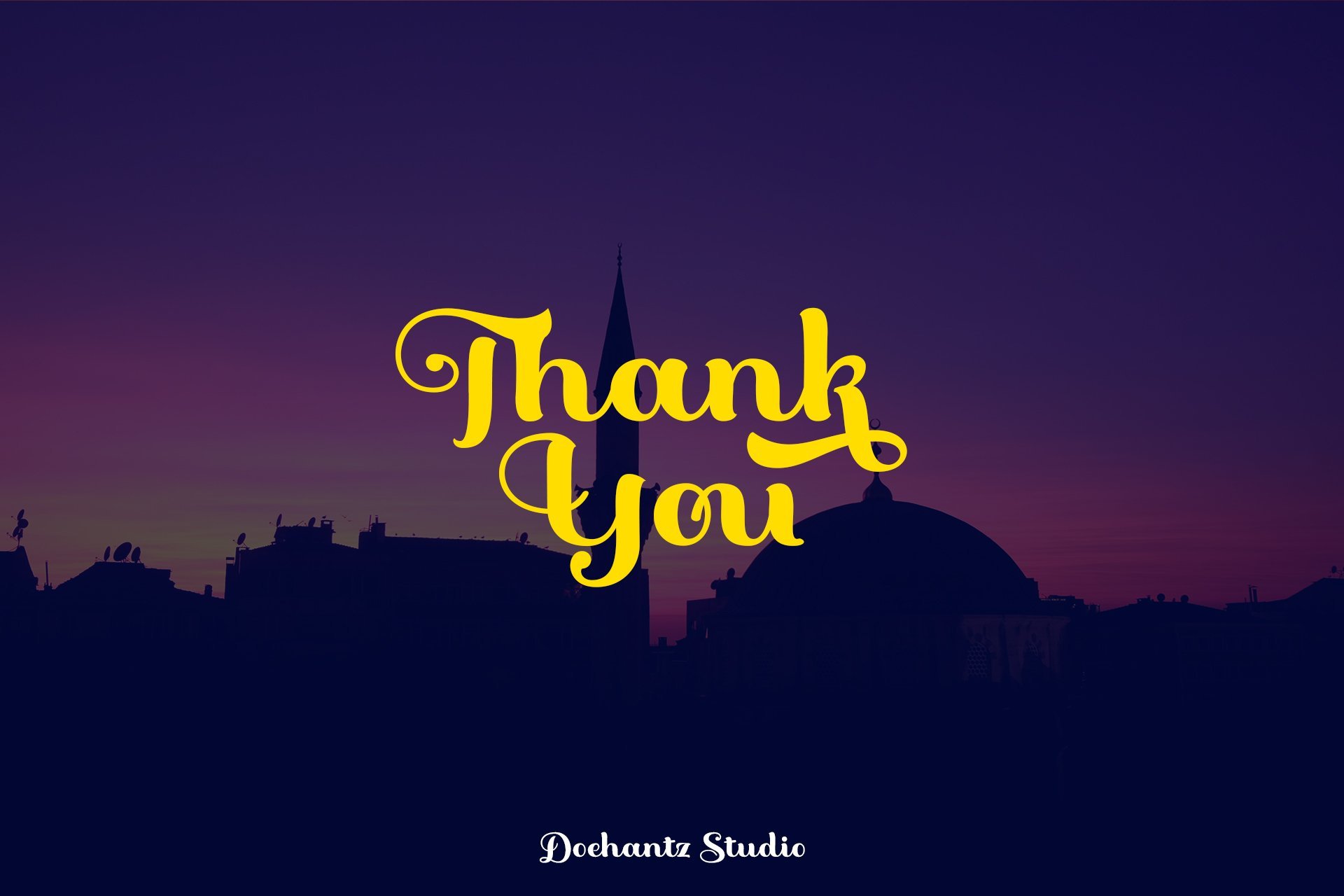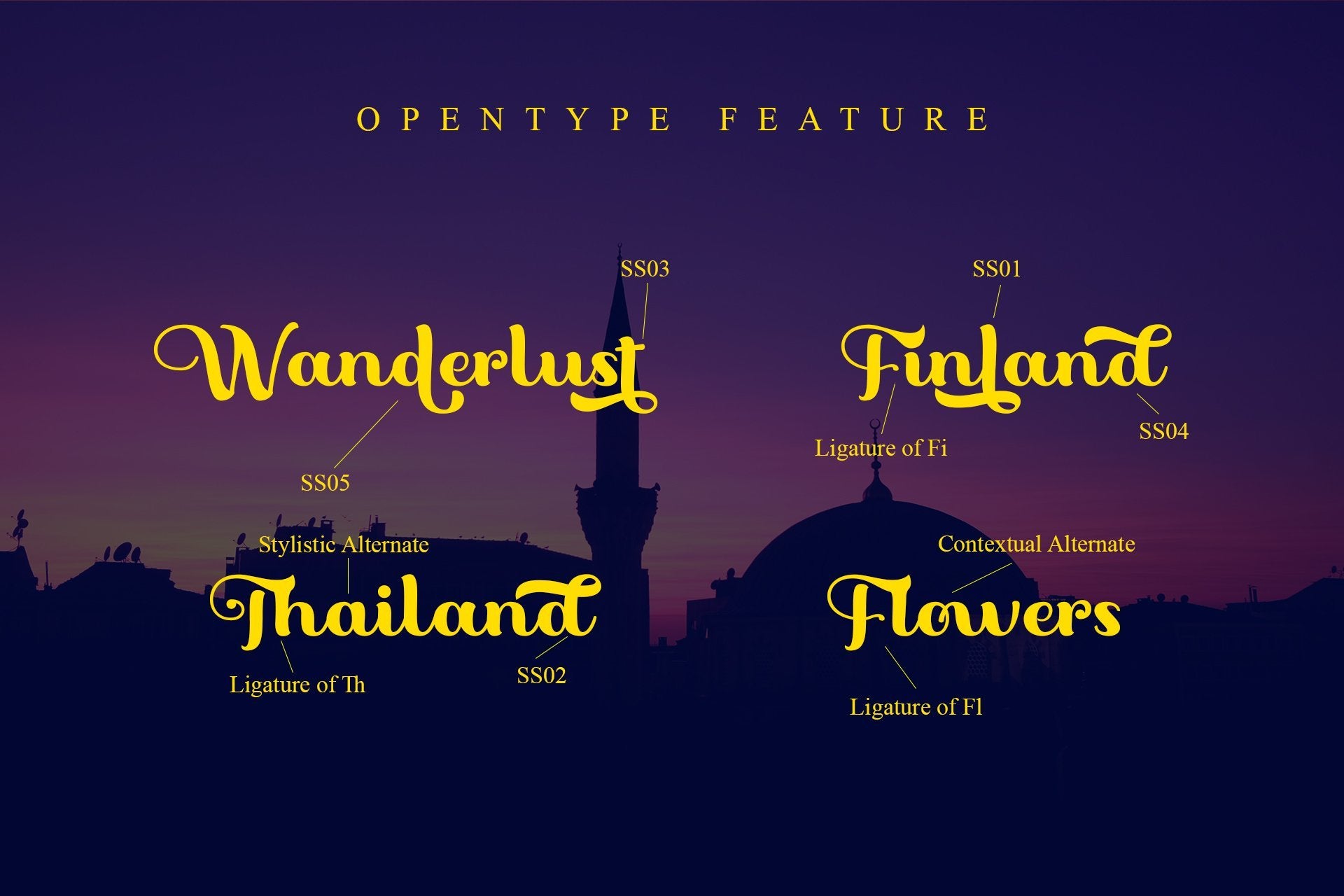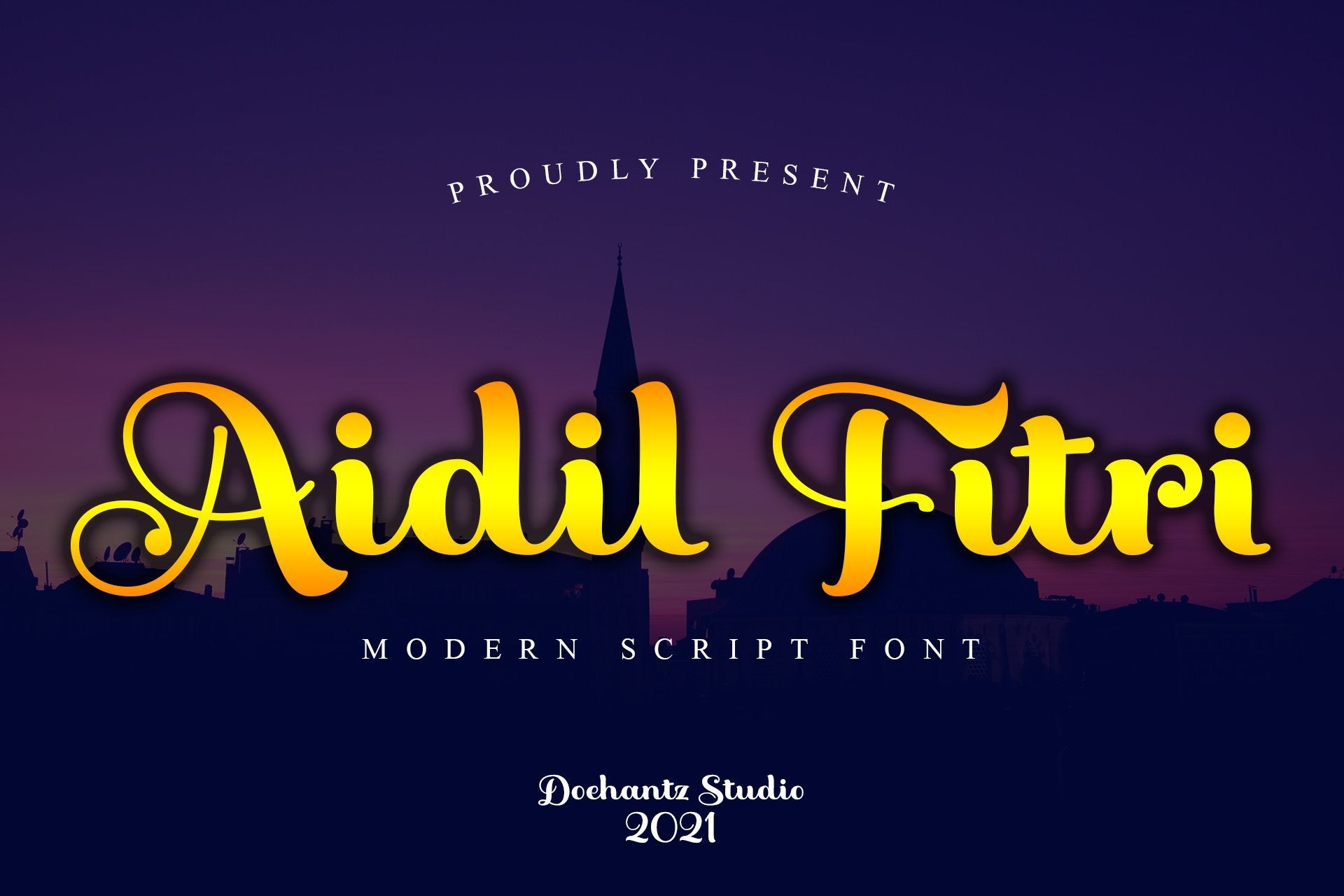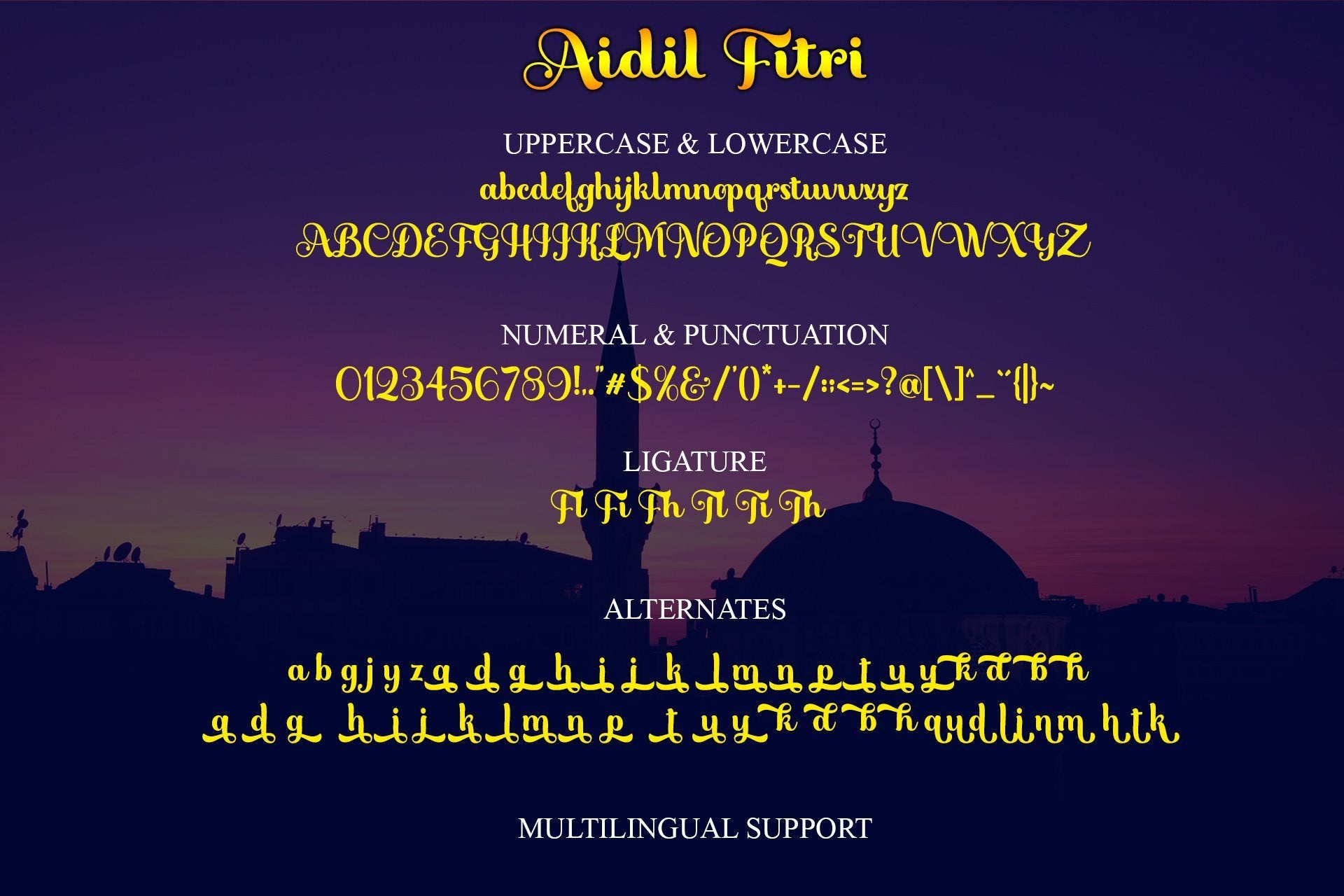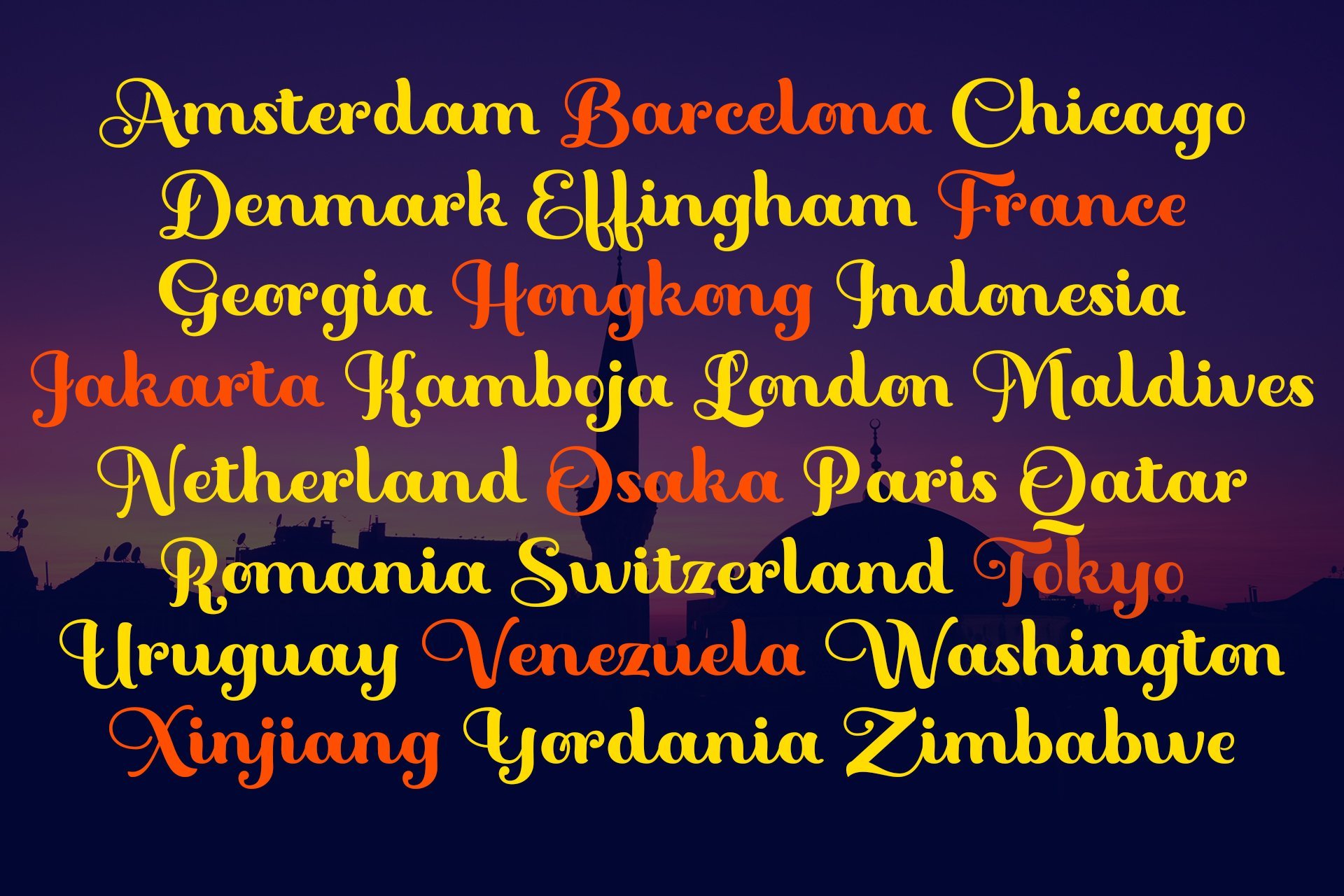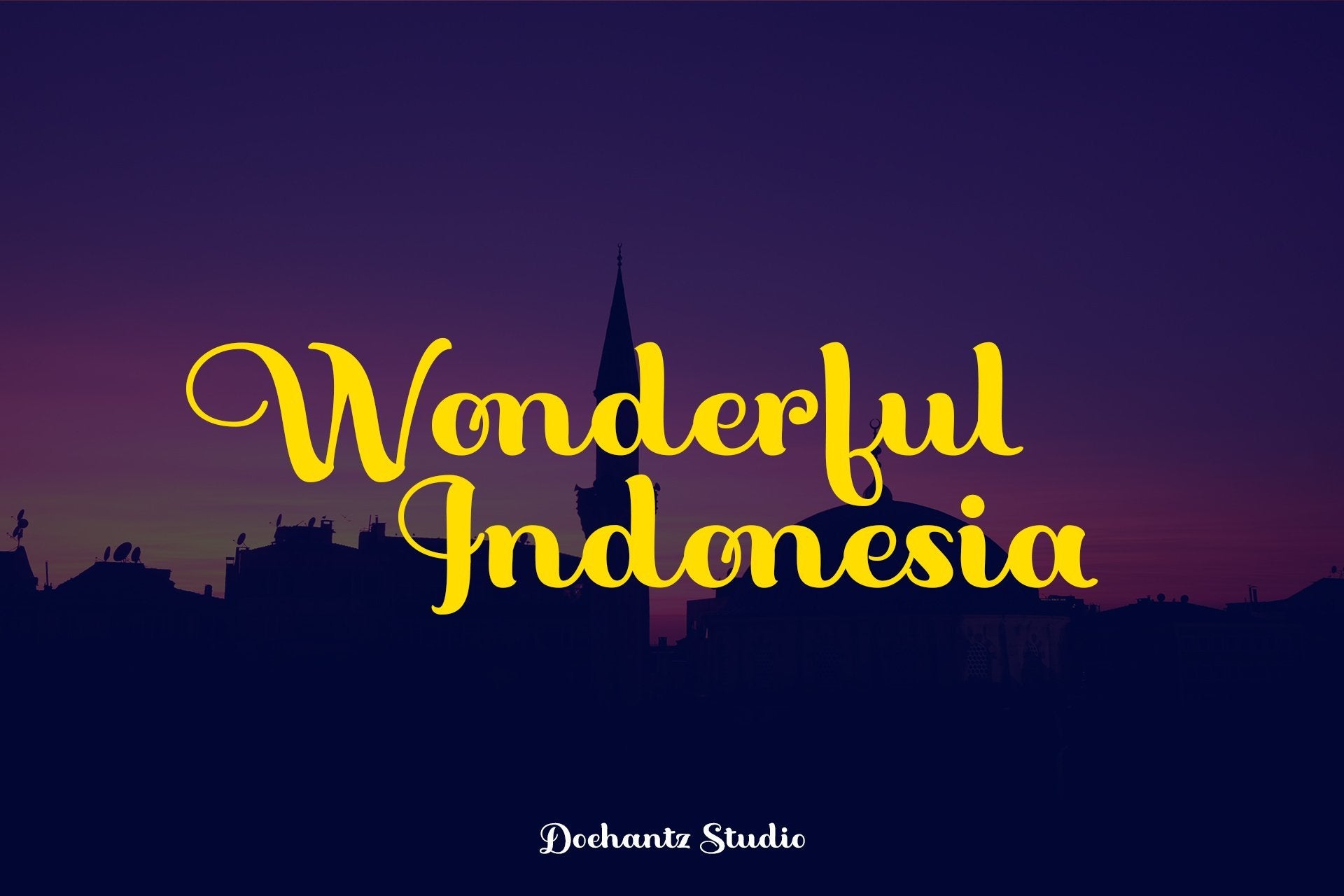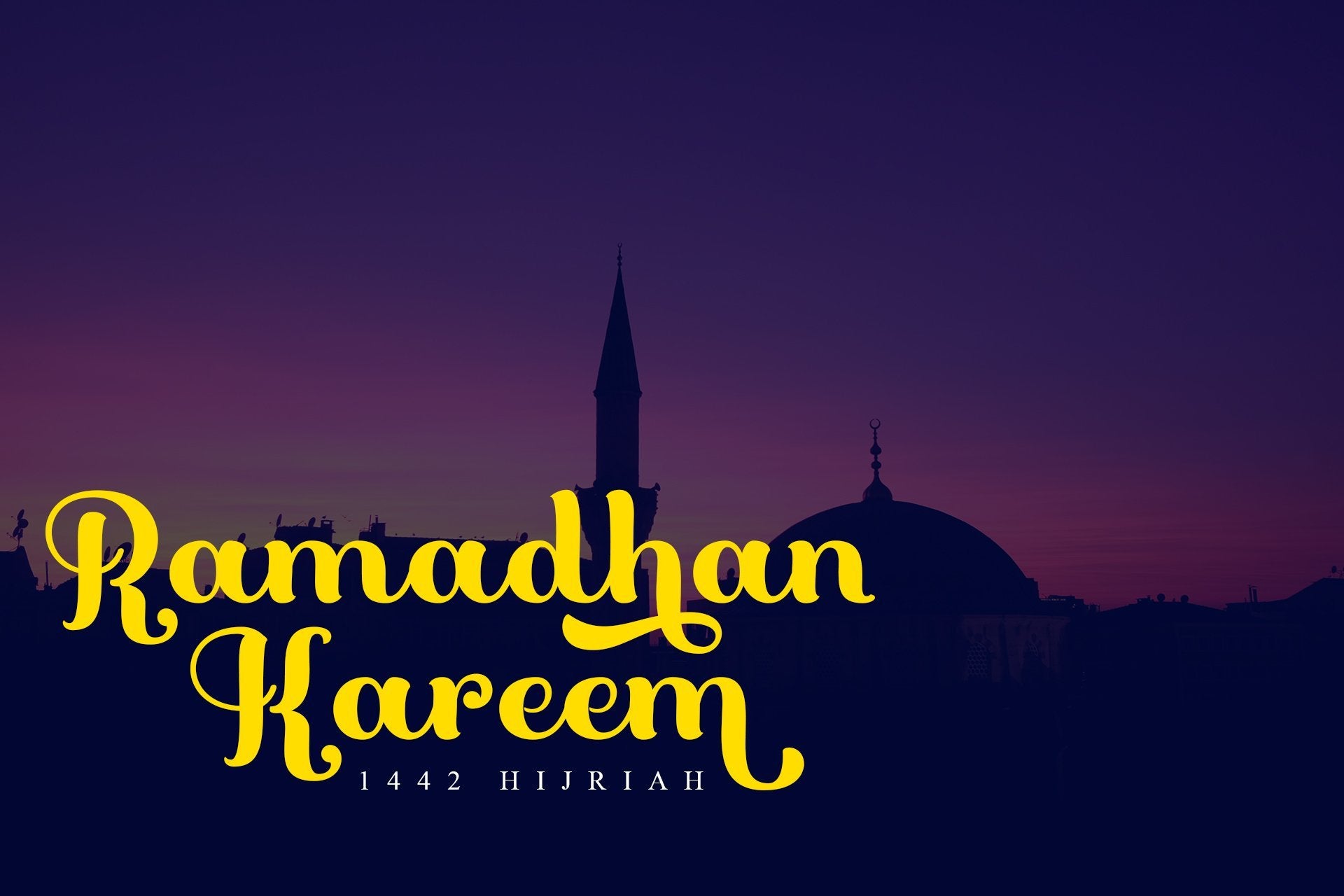
Aidil Fitri is a modern script font. It has a neat shape and is beautiful to read. It is look gorgeous for making logo, branding, product packaging, signage, clothes, business card, promotion product, and many more.